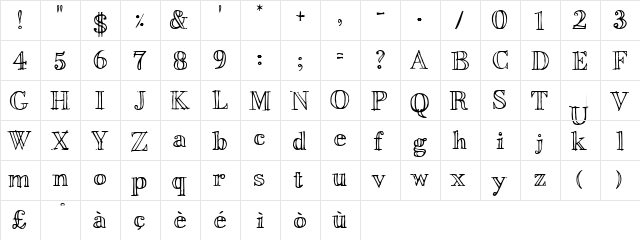
BodonFriz,96 1
Design Context for BodonFriz,96 Typeface
BodonFriz,96 takes a measured approach to typography — its balanced proportions and neutral character make it a reliable workhorse for both digital and print work.